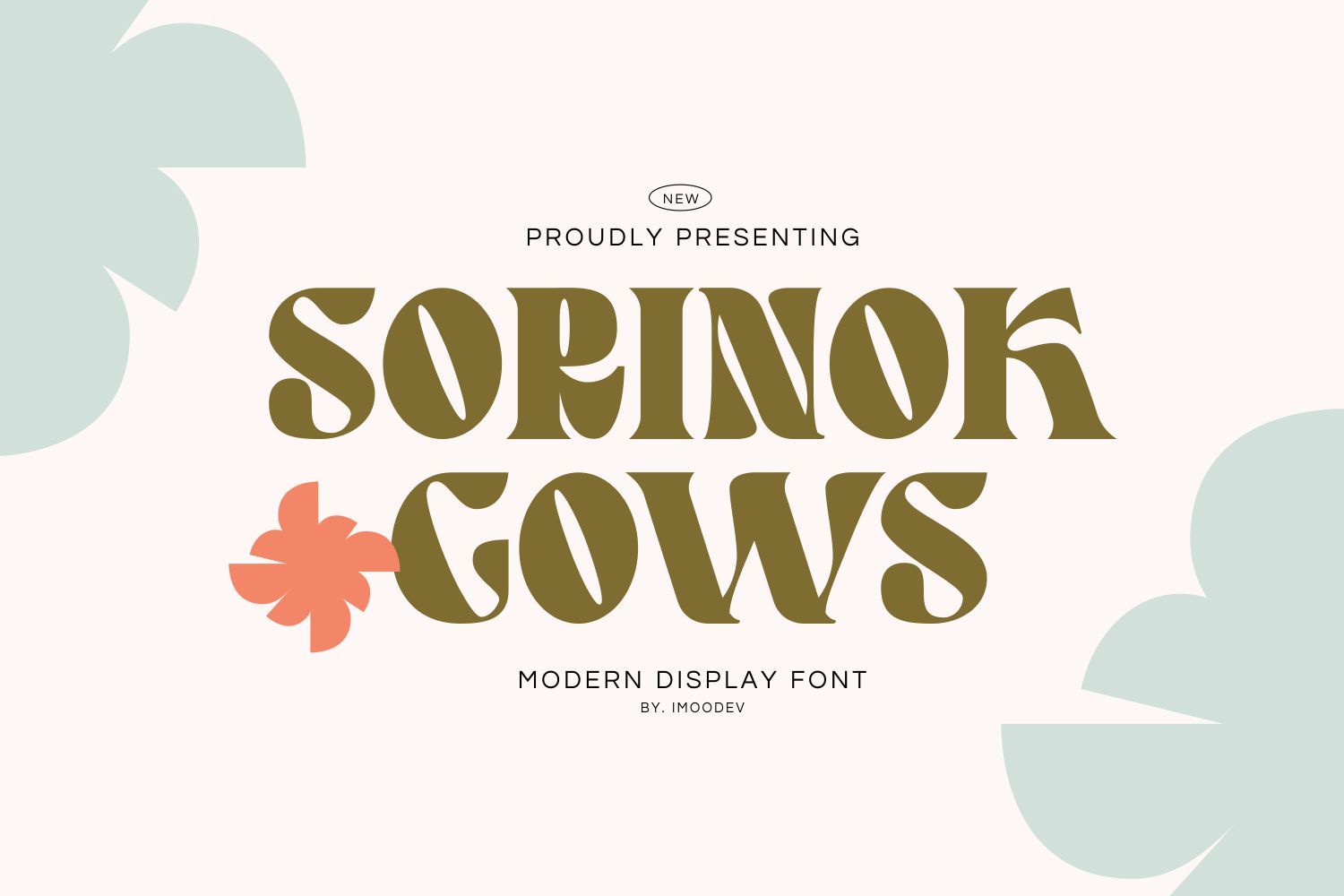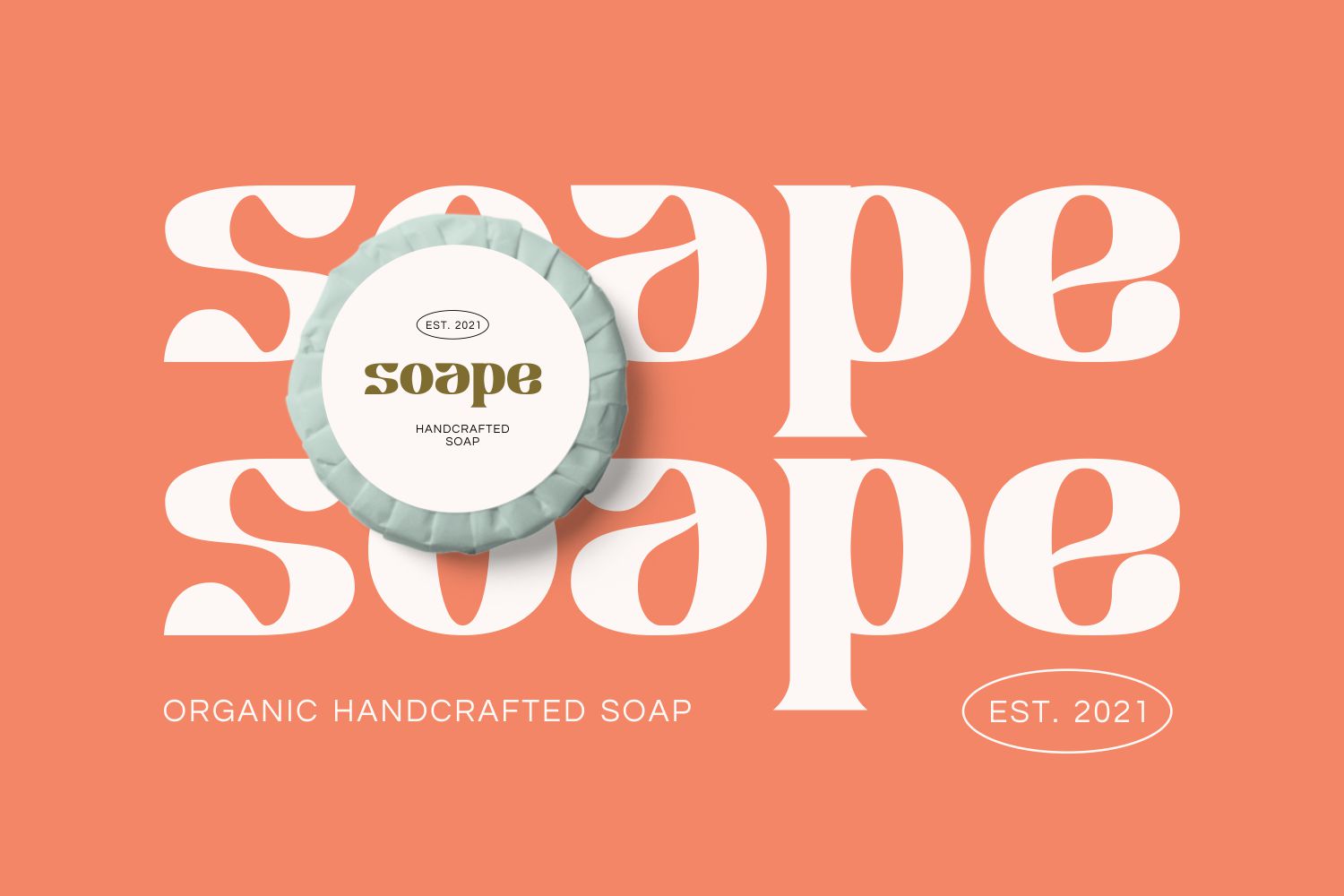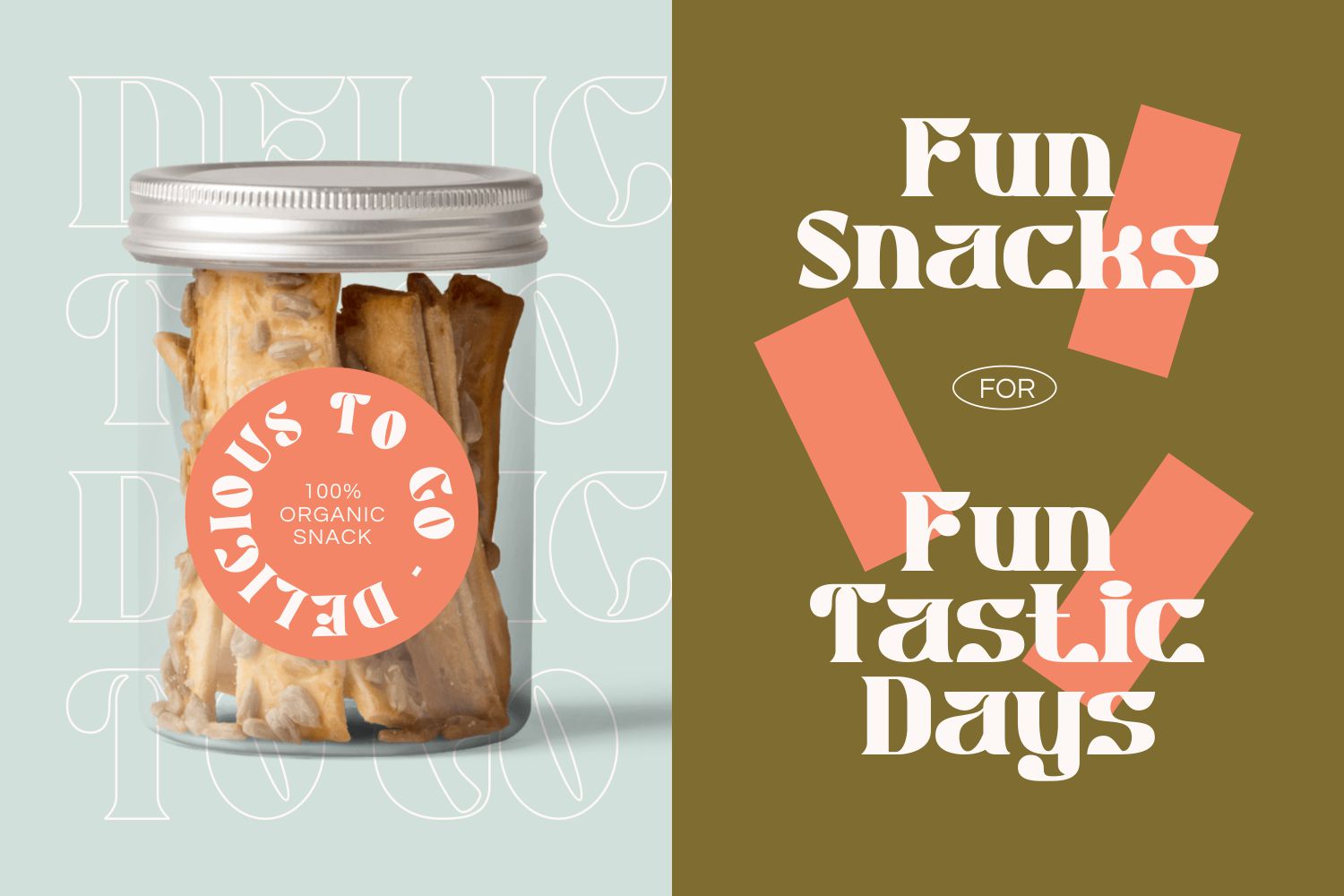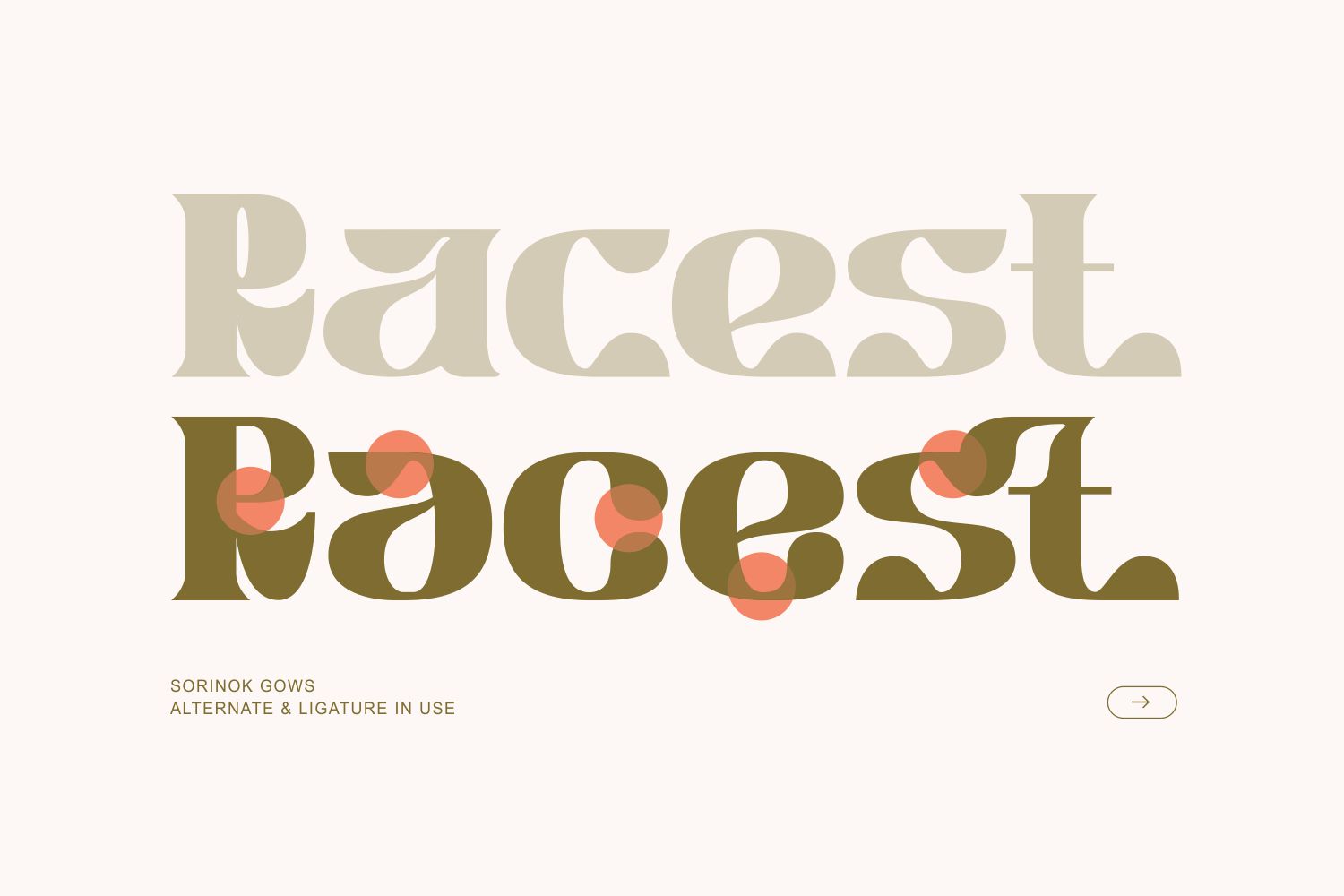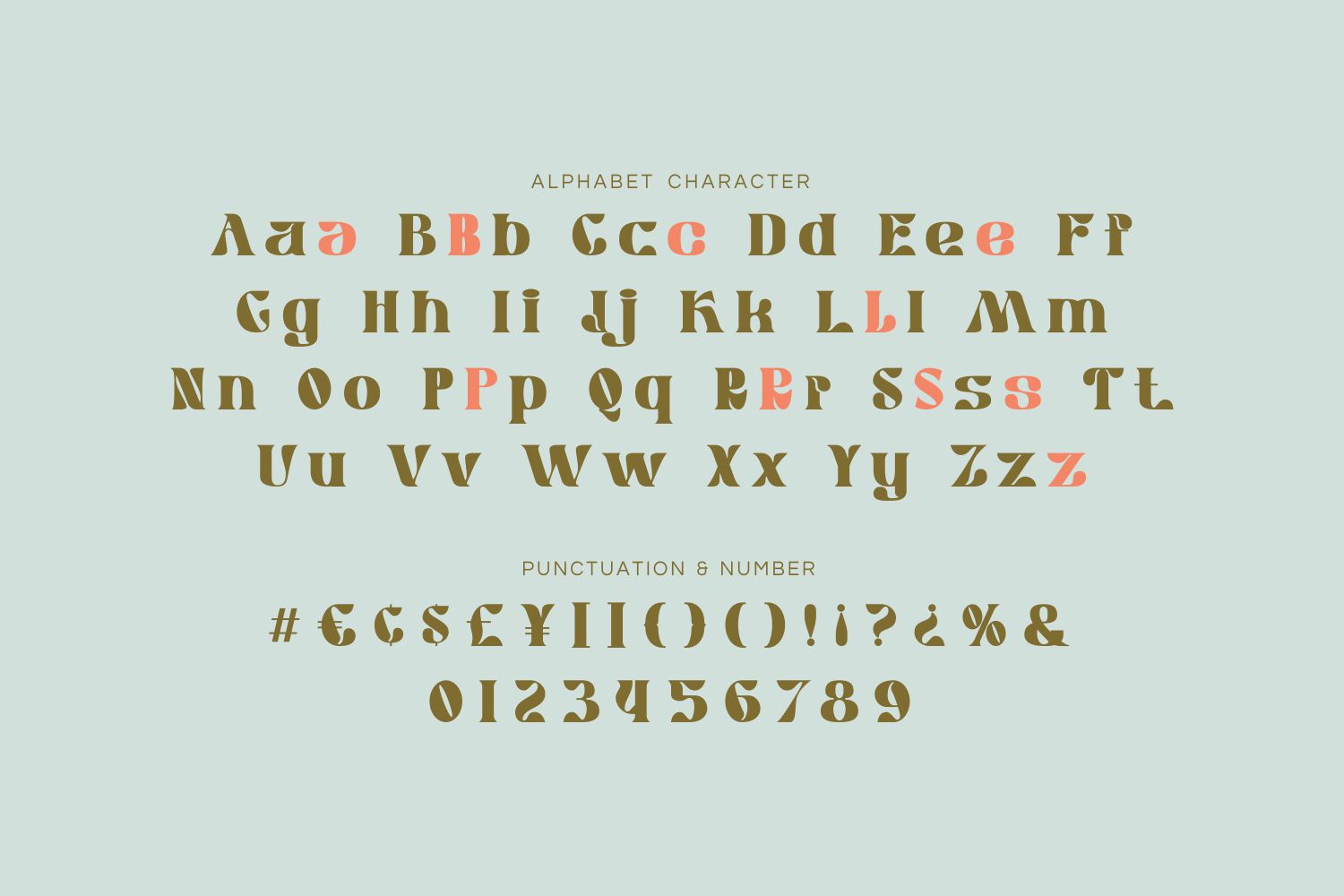
Sorinok Gows
Sorinok Gows is a modern display font with a bold yet organic style, inspired by handcrafted design aesthetics. Its unique letterforms combine retro flair with a contemporary twist, making it perfect for packaging, logos, posters, and lifestyle branding. With its smooth curves and playful elegance, this font brings a fresh and artistic vibe to any project.
Featuring alternates, ligatures, and multilingual support, Sorinok Gows offers great versatility for creative expression. Whether used in food and beverage packaging, eco-friendly product branding, or editorial design, this font captures attention with its stylish balance of modern and vintage charm. It’s an ideal choice for designers looking to add character and authenticity to their work.